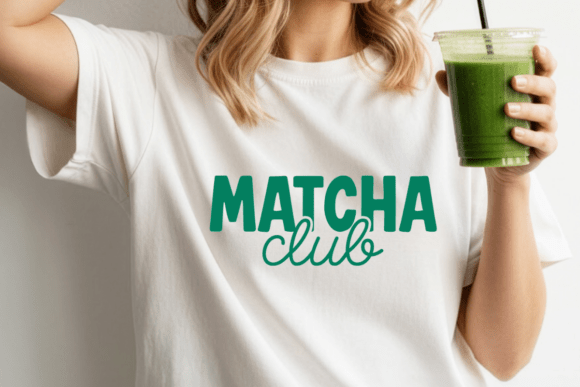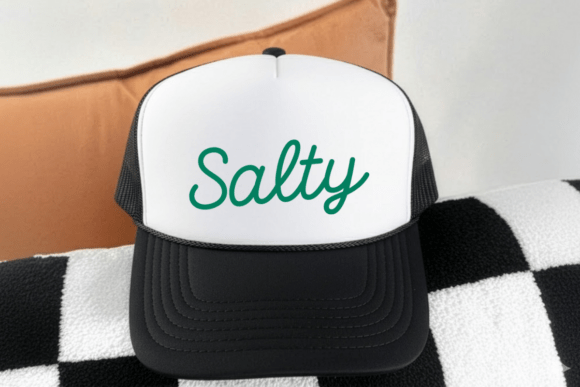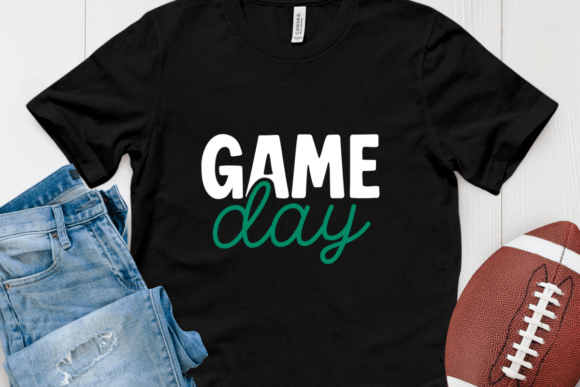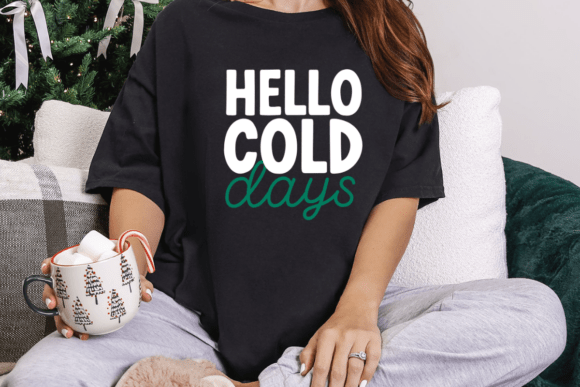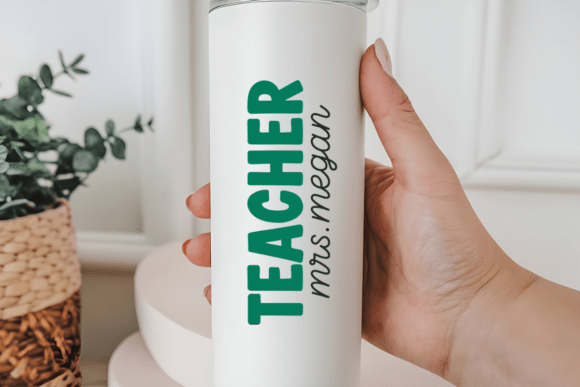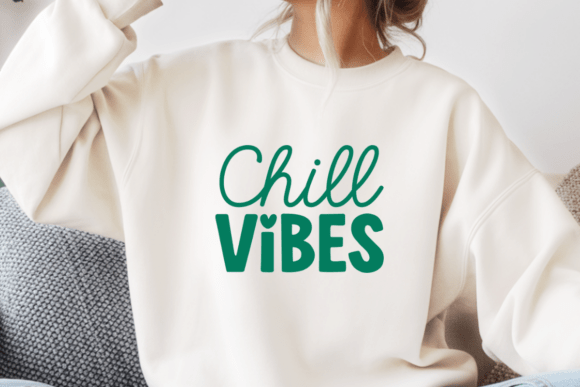
Introduction to Selina Daniel Duo Font Font
Have you ever been stuck on a creative project, unable to find the perfect font to bring your vision to life? You’ve spent hours scrolling through design resources, searching for that elusive combination of elegance and whimsy. Well, put down your mouse and take a deep breath – we’ve got you covered. Introducing the Selina Daniel Duo Font Font, a game-changing design duo that will elevate your creative project to new heights.
This innovative font pair features a beautiful, flowing script and a playful, chunky sans-serif, offering a harmonious blend of high-quality aesthetics in one package. With the Selina script and Daniel sans-serif, you’ll have the perfect toolkit for branding that requires visual hierarchy and personality.
Key Features of Selina Daniel Duo Font Font
- Includes 2 unique font styles: Selina and Daniel, perfect for pairing
- Each font style includes uppercase and lowercase letters, numbers, and punctuation
Honest Review: Selina Daniel Duo Font Font
As a designer, I’m always on the lookout for high quality design resources that can elevate my creative projects. Recently, I came across the Selina Daniel Duo Font Font, and I’m excited to share my honest review.
What works well: ✨ The font is incredibly versatile, with two unique styles that can be used separately or together to add depth to your designs. The transparent background makes it easy to use on any background, and the free download is a huge bonus.
- Wide range of applications, from logos to posters and everything in between
However, I do have a few limitations to mention: ⚠️ The font is not as extensive as some other fonts I’ve used, and the styles can feel a bit repetitive at times. Additionally, the font might not be suitable for very small text sizes due to its bold nature.
Overall impression: I’m really impressed with the Selina Daniel Duo Font Font, and I think it’s a great addition to any designer’s toolkit. With a little creativity, it can help take your designs to the next level. Give it a try and see what you can create!
Selina Daniel Duo Font Font is a versatile and high-quality design resource that offers a unique combination of elegant and modern elements. This font is perfect for creative projects requiring a touch of sophistication and style.
Selina Daniel Duo Font Font is ideal for a variety of creative projects, including business cards, invitations, and social media graphics. Its high-quality design and elegant style make it perfect for professionals and hobbyists alike.